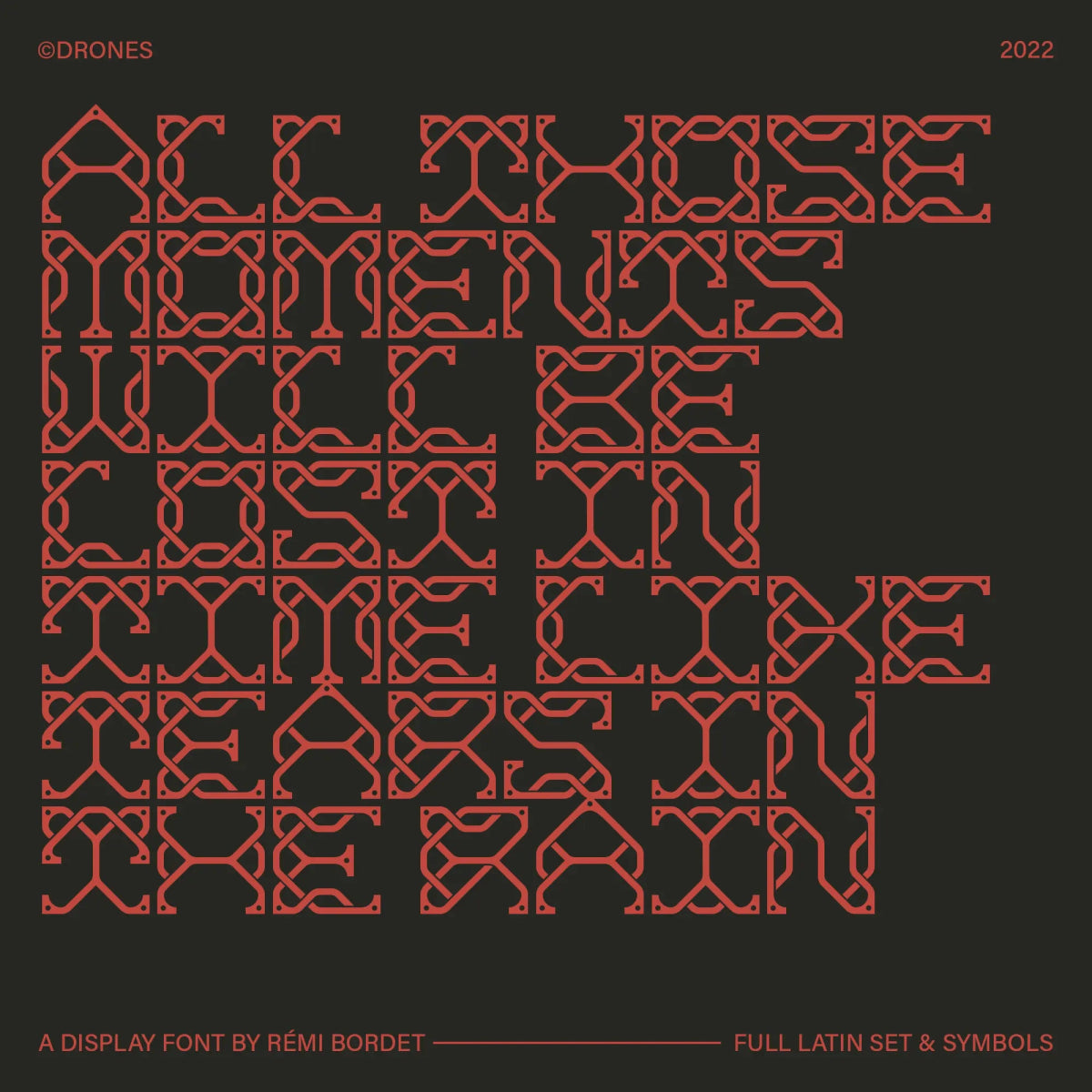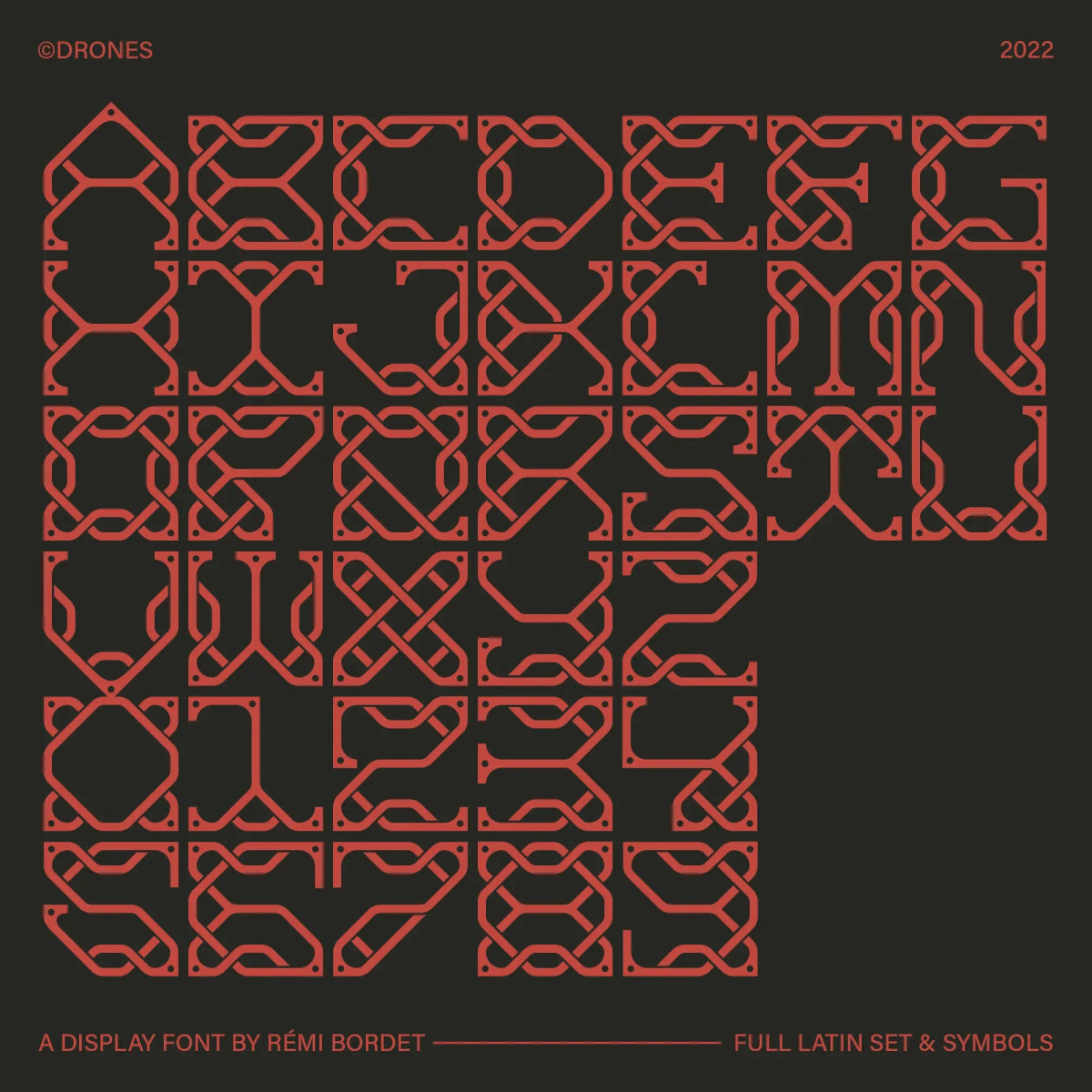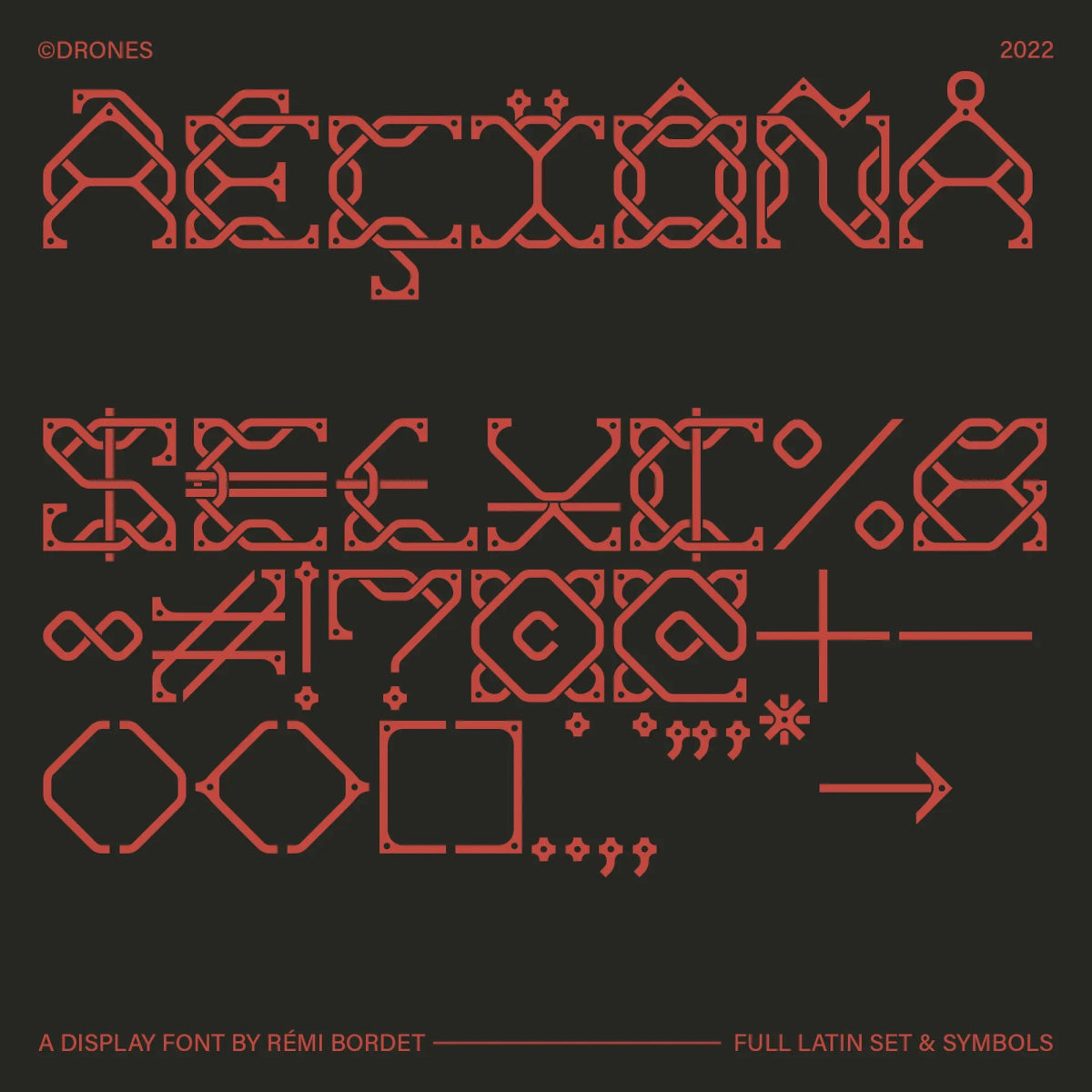
Drones Display Font
by Rémi Bordet
Drones is a futuristic, mechanical display font inspired by industrial design and circuit board aesthetics. Its modular grid-like structure and robotic feel make it a perfect fit for experimental visuals, sci-fi branding, and cyberpunk interfaces.
Font Features
• Full uppercase Latin alphabet
• Full set of numbers and punctuation
Rémi Bordet
Rémi Bordet is a french graphic and type designer and artist who creates bold, minimalist posters combining impactful imagery and typography. His work highlights contradictions, both aesthetically and symbolically speaking, through stylistic visual metaphors that blend brutalist aesthetics with emotional depth.